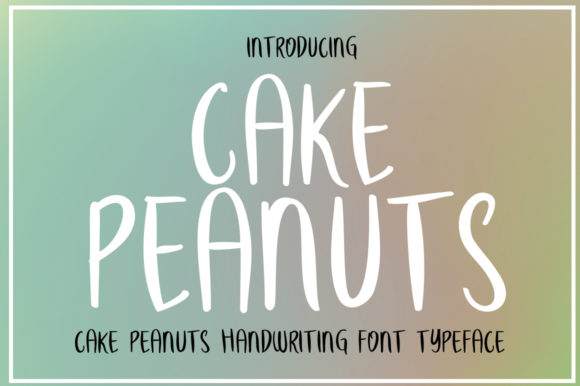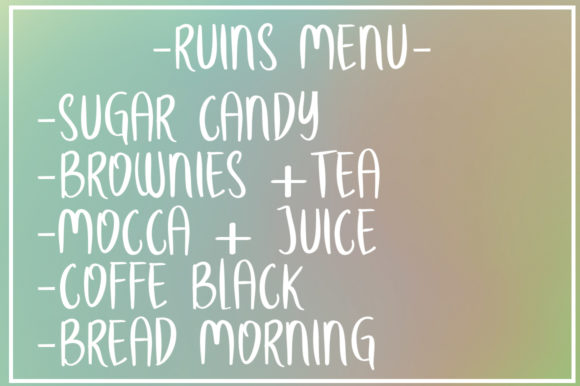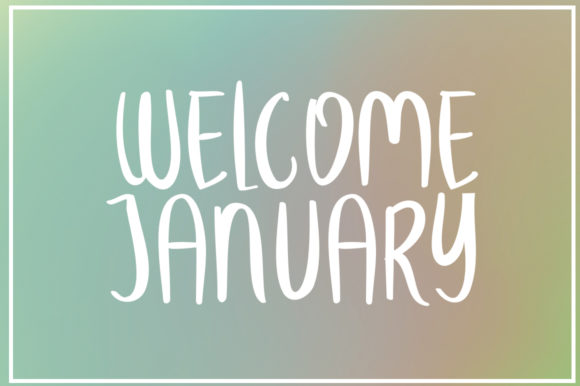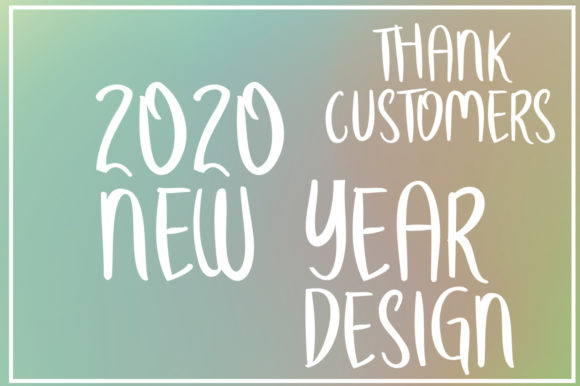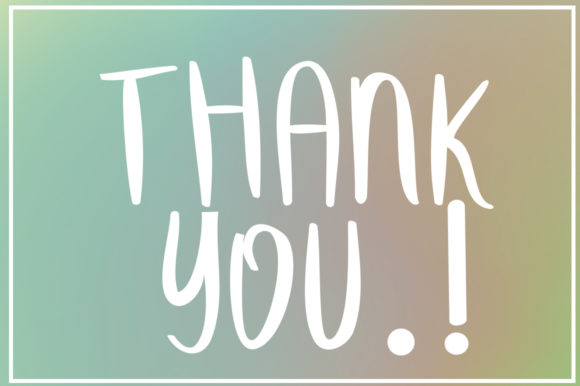
Cake Peanuts Font
About Cake Peanuts Font
Cake Peanuts is a bittersweet font! This cute script font is perfect for a wide variety of projects, fall in love with its playful look!